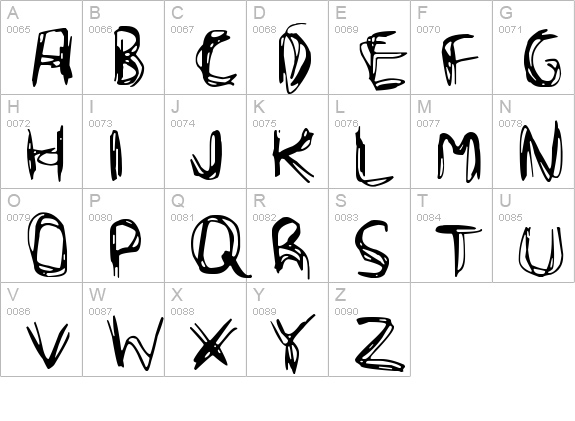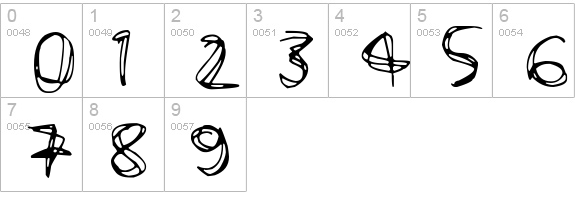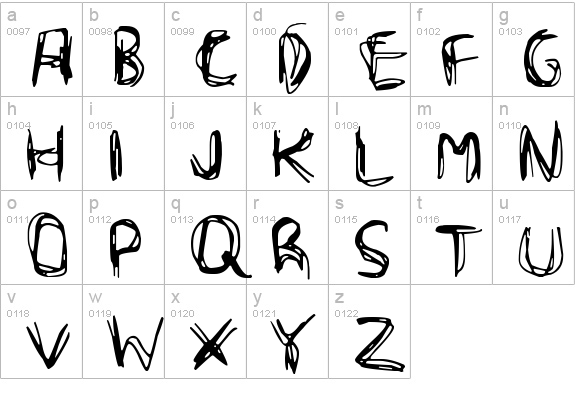
Scribble Wire Font Details
Scribble Wire is a free for personal use font in the Script category, designed by Darrell Flood. It has been downloaded 13 times and is available for Windows, Mac and Linux.
Scribble Wire font is a unique and playful typeface that captures the essence of hand-drawn sketches and doodles. Its whimsical and free-flowing design adds a touch of creativity and spontaneity to any project. The irregular lines and quirky shapes give Scribble Wire a charming and casual look that is perfect for adding a fun and artistic flair to your designs.